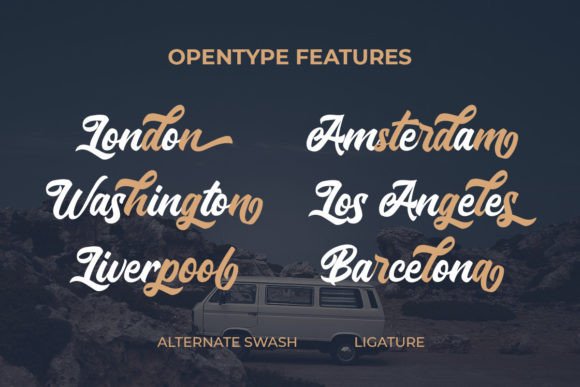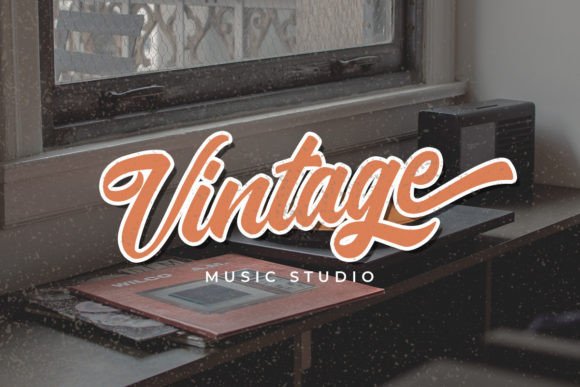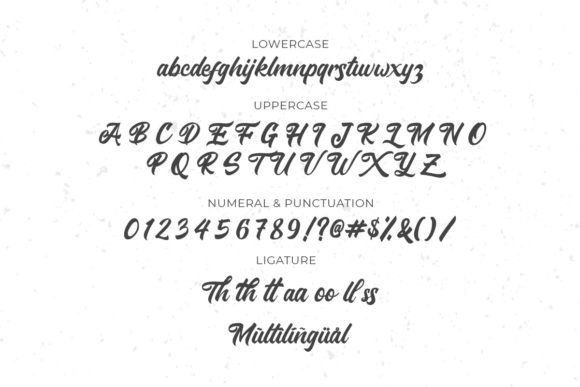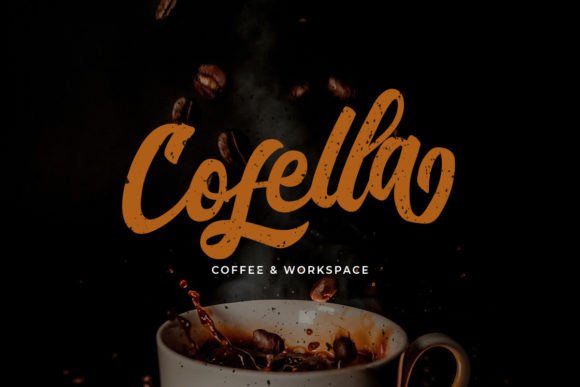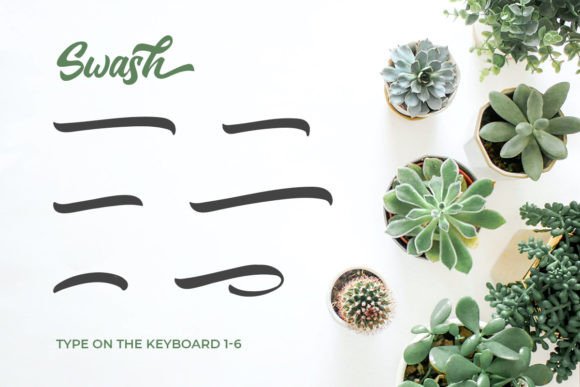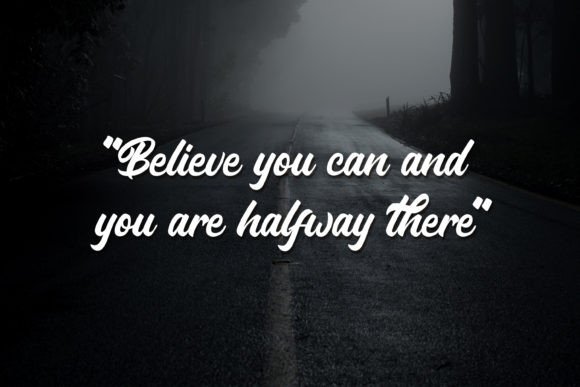
Introducing Bertuah: A Natural Handwriting Script Typeface
Are you tired of using the same old fonts for your designs? Look no further! We’re excited to introduce Bertuah, a beautiful natural handwriting script typeface that’s perfect for adding a personal touch to your creative projects. In this article, we’ll take a closer look at the features and benefits of Bertuah, and explore how it can elevate your designs to the next level.
What is Bertuah?
Bertuah is a handwriting script typeface that’s designed to mimic the natural flow of handwritten text. With its elegant and fluid strokes, Bertuah is perfect for creating beautiful and eye-catching designs that stand out from the crowd. Whether you’re a designer, crafty DIY enthusiast, or simply someone who loves to create, Bertuah is an excellent choice for any project that requires a personal touch.
What Makes Bertuah Special?
So, what sets Bertuah apart from other fonts? Here are just a few of its key features:
• PUA Encoded: Bertuah is PUA (Private Use Area) encoded, which means you can access all of the amazing glyphs and ligatures with ease. This makes it easy to create beautiful and unique designs that showcase your creativity.
• Natural Handwriting Style: Bertuah’s handwriting style is designed to look natural and effortless. With its subtle imperfections and fluid strokes, Bertuah adds a touch of warmth and personality to any design.
• Highly Versatile: Bertuah is an extremely versatile font that can be used for a wide range of projects, from headlines and logos to Instagram posts and stories, magazines, books, greeting cards, packaging, fashion, makeup, stationery, novels, labels, and more.
Use Cases for Bertuah
Bertuah is an incredibly versatile font that can be used for a wide range of projects. Here are just a few ideas to get you started:
• Headlines and Logos: Use Bertuah to create eye-catching headlines and logos that showcase your brand’s personality.
• Social Media: Add a personal touch to your Instagram posts and stories with Bertuah’s beautiful handwriting style.
• Magazines and Books: Use Bertuah to add a touch of elegance and sophistication to your magazine or book designs.
• Greeting Cards and Packaging: Create beautiful and unique greeting cards and packaging with Bertuah’s natural handwriting style.
• Fashion and Makeup: Use Bertuah to create stunning fashion and makeup designs that showcase your brand’s personality.
• Stationery and Labels: Add a personal touch to your stationery and labels with Bertuah’s elegant handwriting style.
Why Designers and Crafters Love Bertuah
So, why do designers and crafters love Bertuah? Here are just a few reasons:
• Ease of Use: Bertuah is incredibly easy to use, even for those who are new to design. With its PUA encoding, you can access all of the amazing glyphs and ligatures with ease.
• Customization: Bertuah is highly customizable, allowing you to create unique and personalized designs that showcase your creativity.
• Unique Look: Bertuah’s natural handwriting style gives your designs a unique and distinctive look that sets you apart from the crowd.
In conclusion, Bertuah is a beautiful natural handwriting script typeface that’s perfect for designers and crafters who want to add a personal touch to their creative projects. With its elegant and fluid strokes, PUA encoding, and highly versatile design, Bertuah is an excellent choice for any project that requires a unique and eye-catching font. So why wait? Download Bertuah today and start creating stunning designs that showcase your creativity!